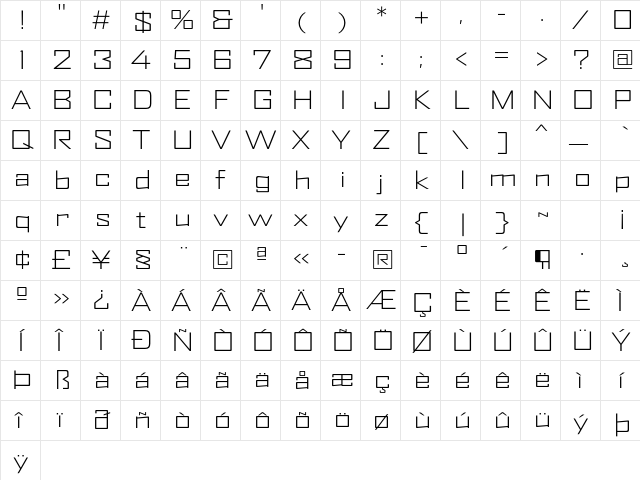
AgencyFB Light Extended Regular Font Preview
AgencyFB Light Extended Regular
AgencyFB Light Extended Regular Font Details
| Foundry | The Font Bureau, Inc. |
Design Context for AgencyFB Light Extended Typeface
AgencyFB Light Extended is a composed and adaptable typeface that performs quietly and consistently across a wide range of design contexts. Its slender proportions lend an understated elegance to any composition.